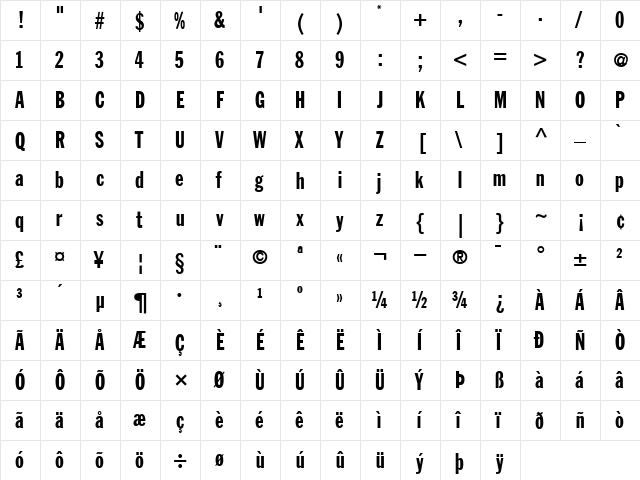
FranklinGothic-ExtraCondensed Roman Font Preview
Design Context for FranklinGothic-ExtraCondensed Typeface
FranklinGothic-ExtraCondensed takes a clean, functional approach — its unadorned letterforms prioritise legibility and work reliably across screen and print environments. The condensed width makes it efficient for tight spaces without sacrificing legibility.
Font Pairing: Works well alongside a characterful serif or display font that can carry the expressive load while FranklinGothic-ExtraCondensed handles the functional copy.
Pro Tip: Use FranklinGothic-ExtraCondensed tightly set in headlines and banners — its condensed proportions make it ideal for maximum impact in minimum horizontal space.